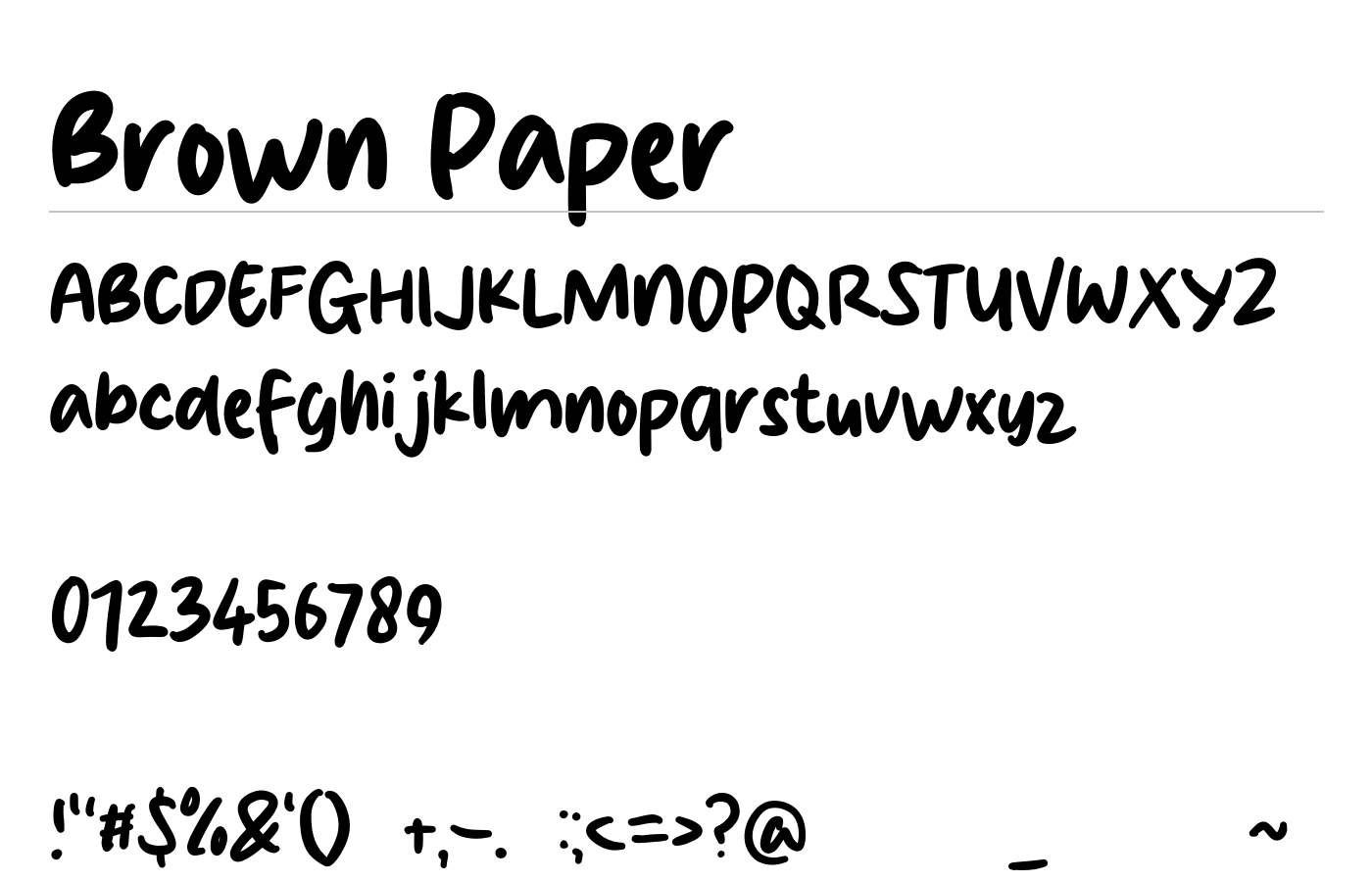
Brown Paper is a casual, handwritten sans serif font with a lively and friendly feel. Its rounded, slightly irregular letterforms and medium weight create an approachable and informal style, perfect for creative projects that want to convey warmth and personality. This font works well for logos, packaging, and playful headlines where a natural, hand-crafted look is desired.
Brown Paper Font
About Brown Paper Font